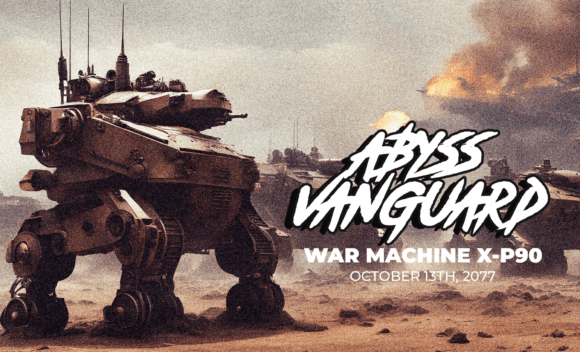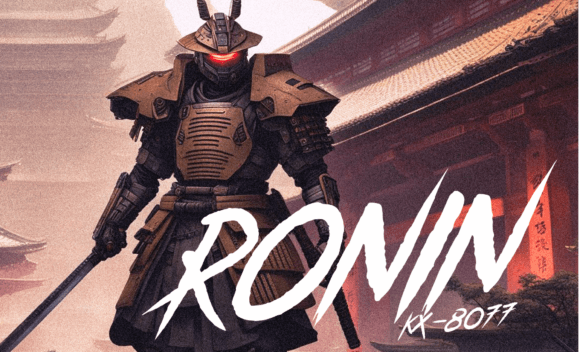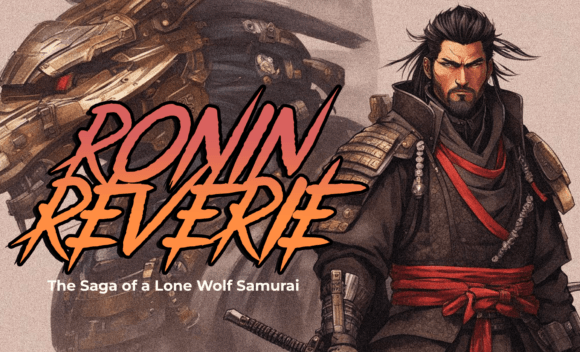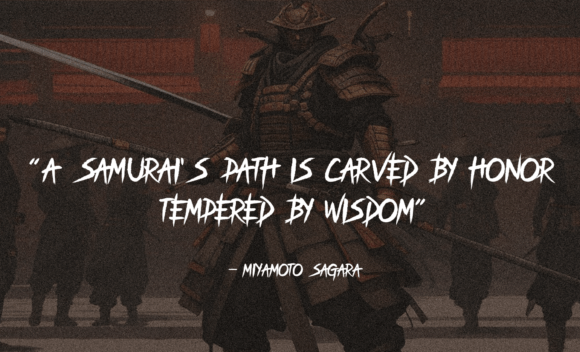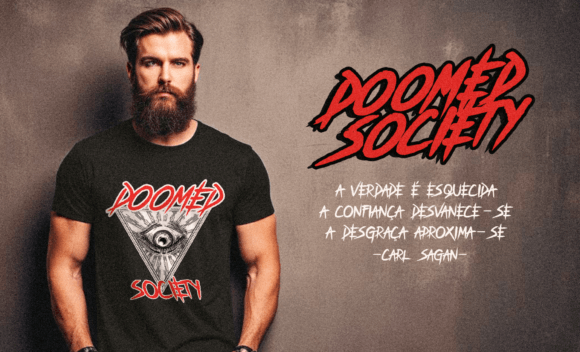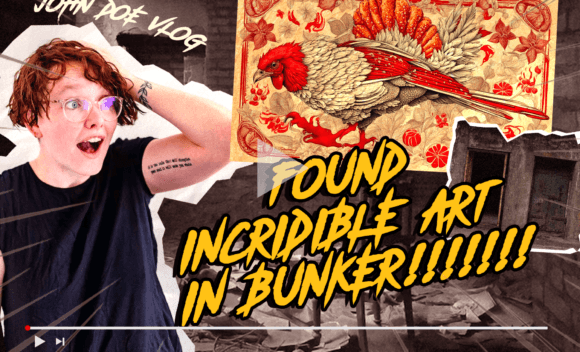
Introduction to Crasher Gear Font
As a designer, you’ve been there – stuck in front of a blank canvas, struggling to bring your creative vision to life. The perfect font can be the game-changer you need to elevate your project from ordinary to extraordinary. That’s where “Crasher Gear Font” comes in – a bold, grunge-inspired handwritten font that’s about to revolutionize the way you design.
With its unique monospaced design and edgy aesthetics, “Crasher Gear Font” is the perfect addition to any creative project. Whether you’re working on a poster, marketing materials, or a YouTube thumbnail, this versatile font is sure to leave a lasting impression. And with its multilingual support and high-quality design, you can trust that your project will be taken seriously.
As a valuable resource for designers, “Crasher Gear Font” offers a range of styles, including Regular, Italic, Oblique Italic, Bold, Bold Italic, and Bold Oblique Italic. And the best part? It’s available for free download, complete with a transparent background, making it easy to incorporate into any design. Get ready to take your creative projects to the next level with the powerful, yet elegant “Crasher Gear Font”.
Key Features of Crasher Gear Font
- Unique and edgy design, perfect for creative projects that require a bold and eye-catching font.
- Includes multiple font styles and weights, providing a range of options for designers to choose from.
Honest Review: Crasher Gear Font
As a designer, I’ve had the chance to work with a wide range of fonts, but the Crasher Gear Font caught my eye. I decided to give it a try and see if it lives up to its promise of being a high-quality design resource. Here’s my honest review.
- ✨ Unique and creative style that adds a touch of edginess to any project.
- ✨ Great for creative projects that require a bold and eye-catching font.
- ⚠️ The font doesn’t come with a transparent background, which may be a problem for designers who need to use it over images.
- ⚠️ Some letters may not be as crisp or clear as I’d like, especially at smaller font sizes.
Overall, I think the Crasher Gear Font is a solid addition to any designer’s collection. While it may not be perfect, its unique style and free download make it a great resource for creative projects. With a little tweaking and adjustments, it can be a valuable asset in any design workflow.
The Crasher Gear Font is ideal for a variety of creative projects, including:
- Logos and branding
- Presentations and business cards
- Graphic design and web design